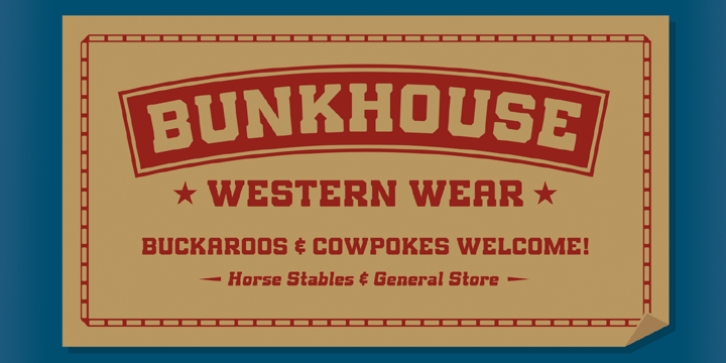
Joey Stephen Maul
Joey Maul
Bunkhouse
is an laid-back Western style font with nice readability at smaller point sizes.
Best for headlines, sub-headers, labels, brands, tags and logos.